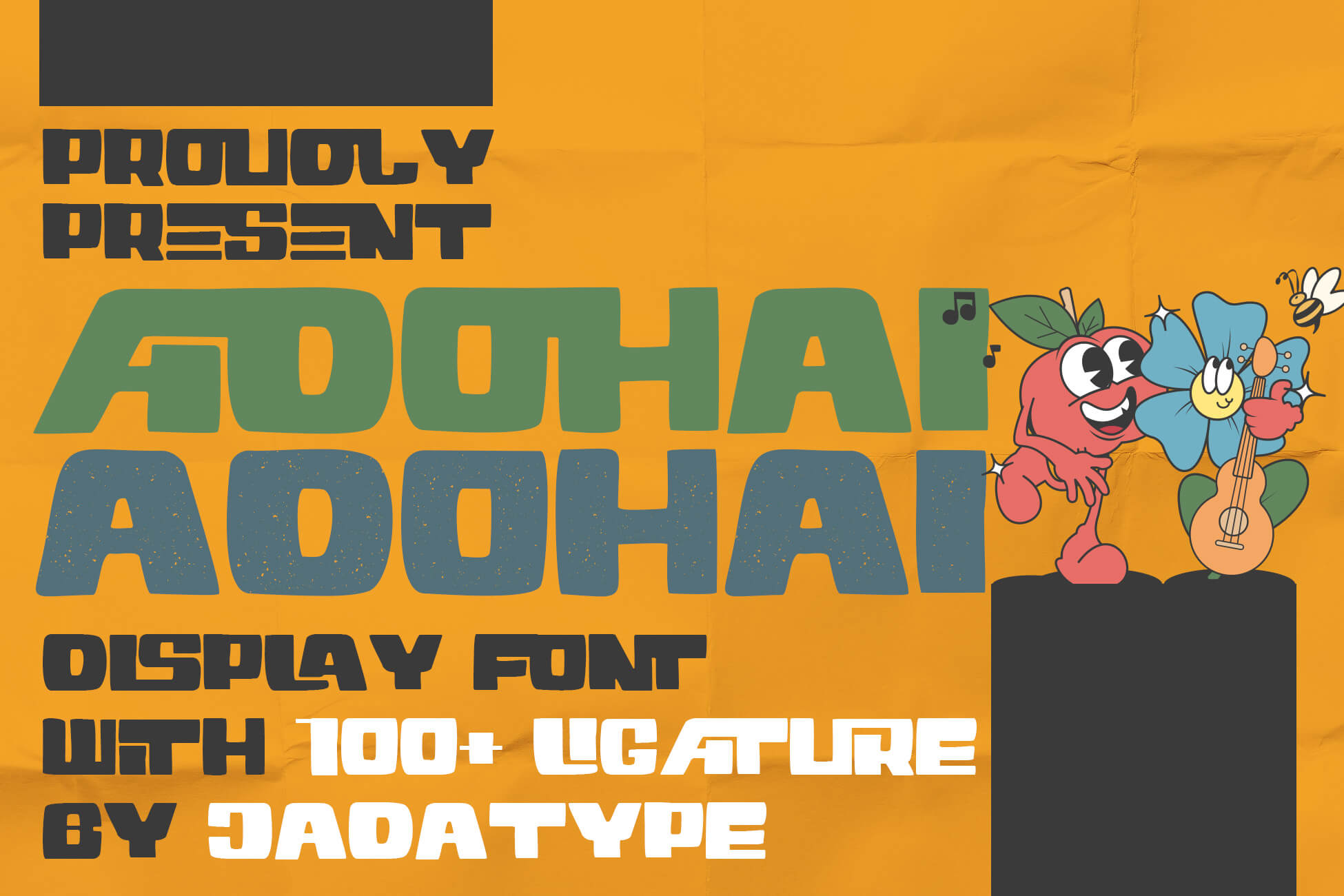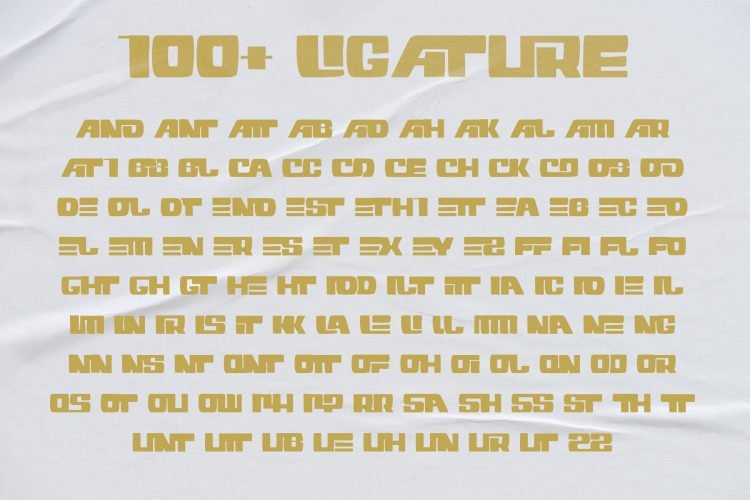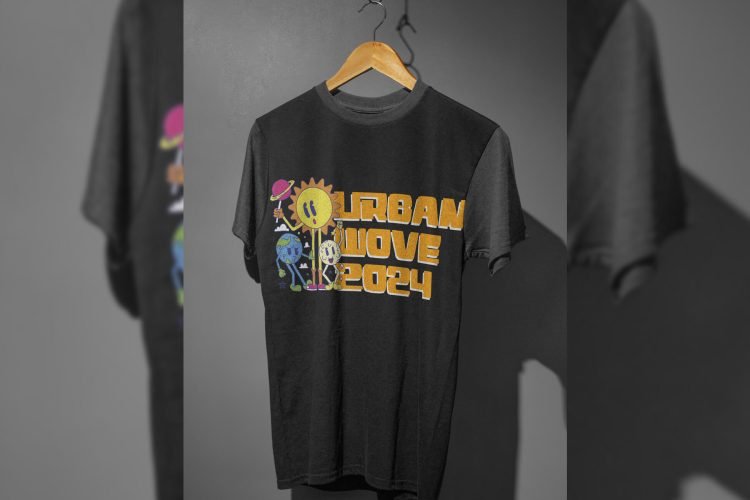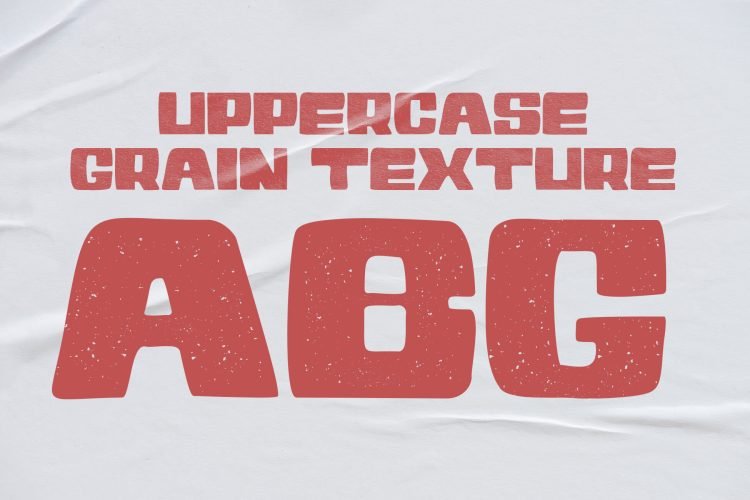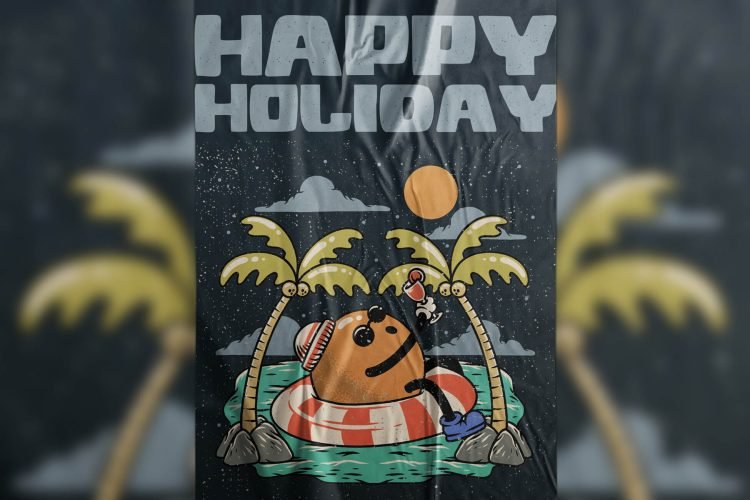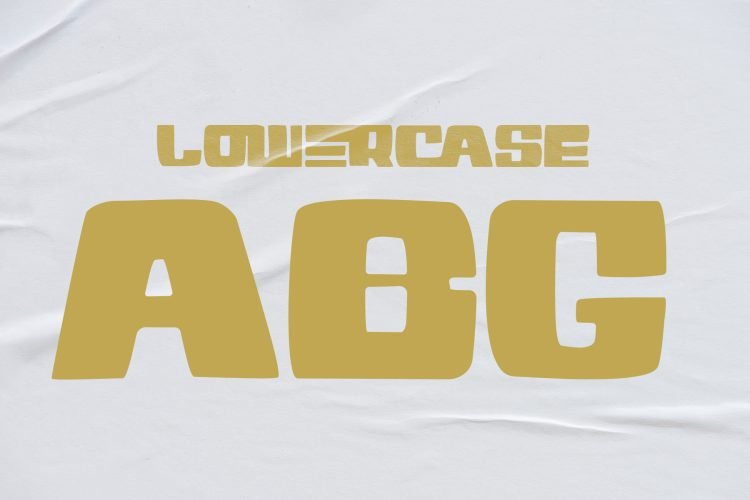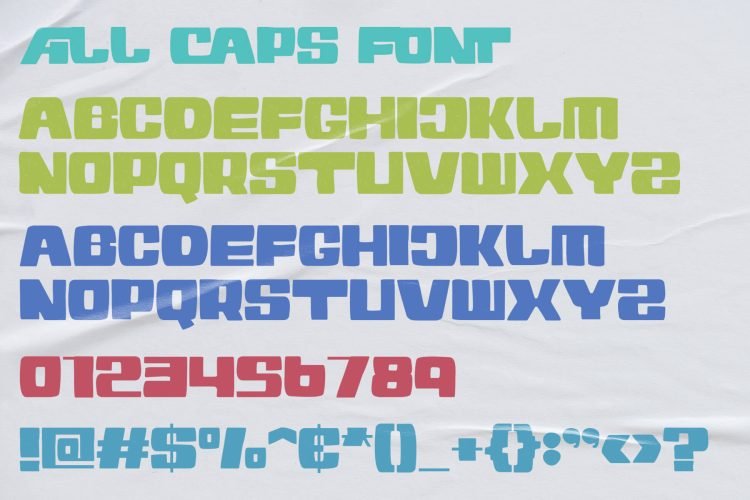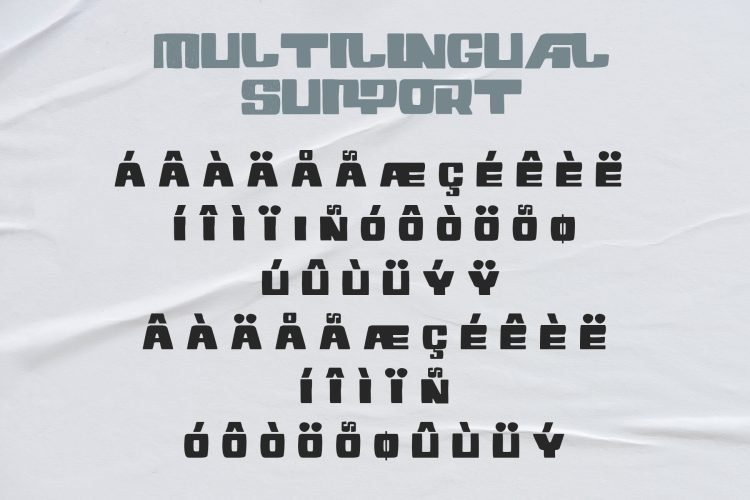
All Caps Display Font
Adohai
Adohai is an All Caps font that comes with Stylish Display and Texturized. Suitable for product, Branding, social media, logotype and so on. contains standard English letters, numbers, punctuation, and several accents that support multilingualism.
Adohai – All Caps Display Font